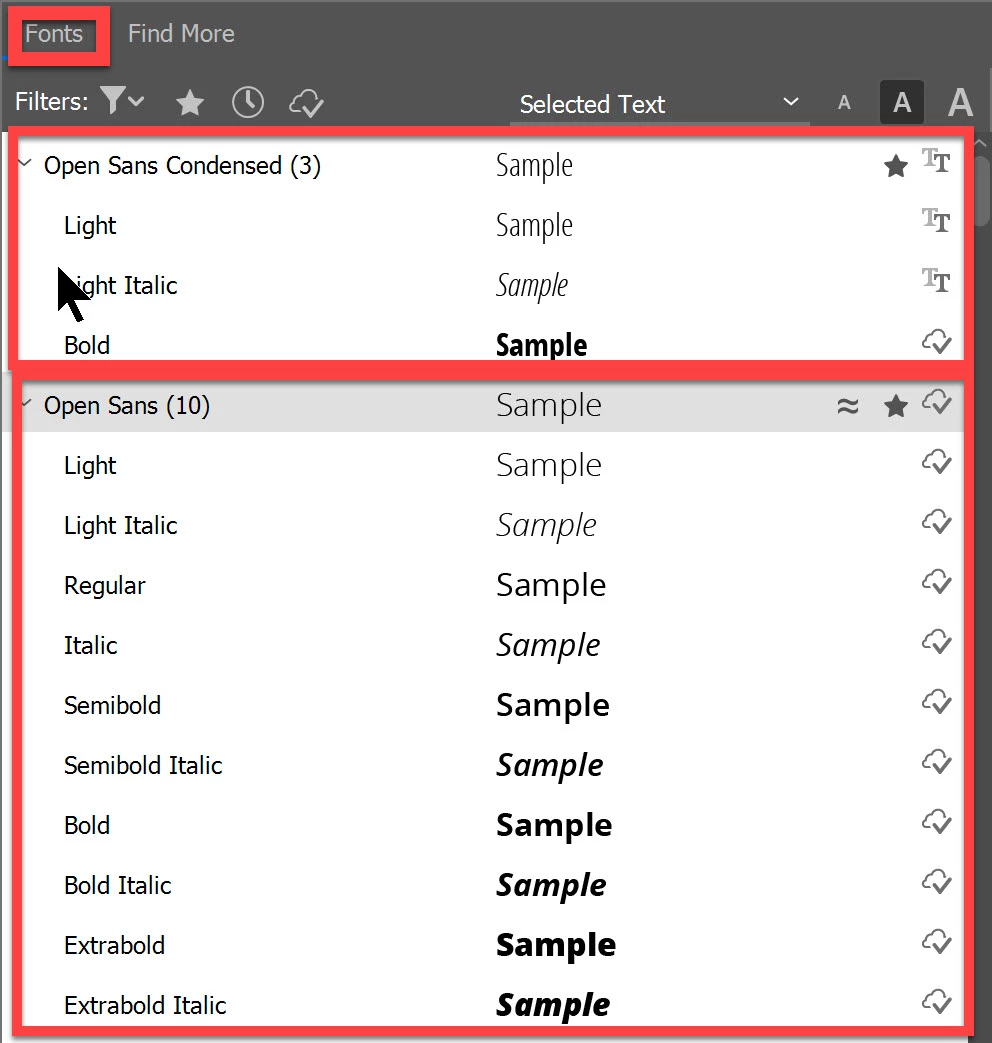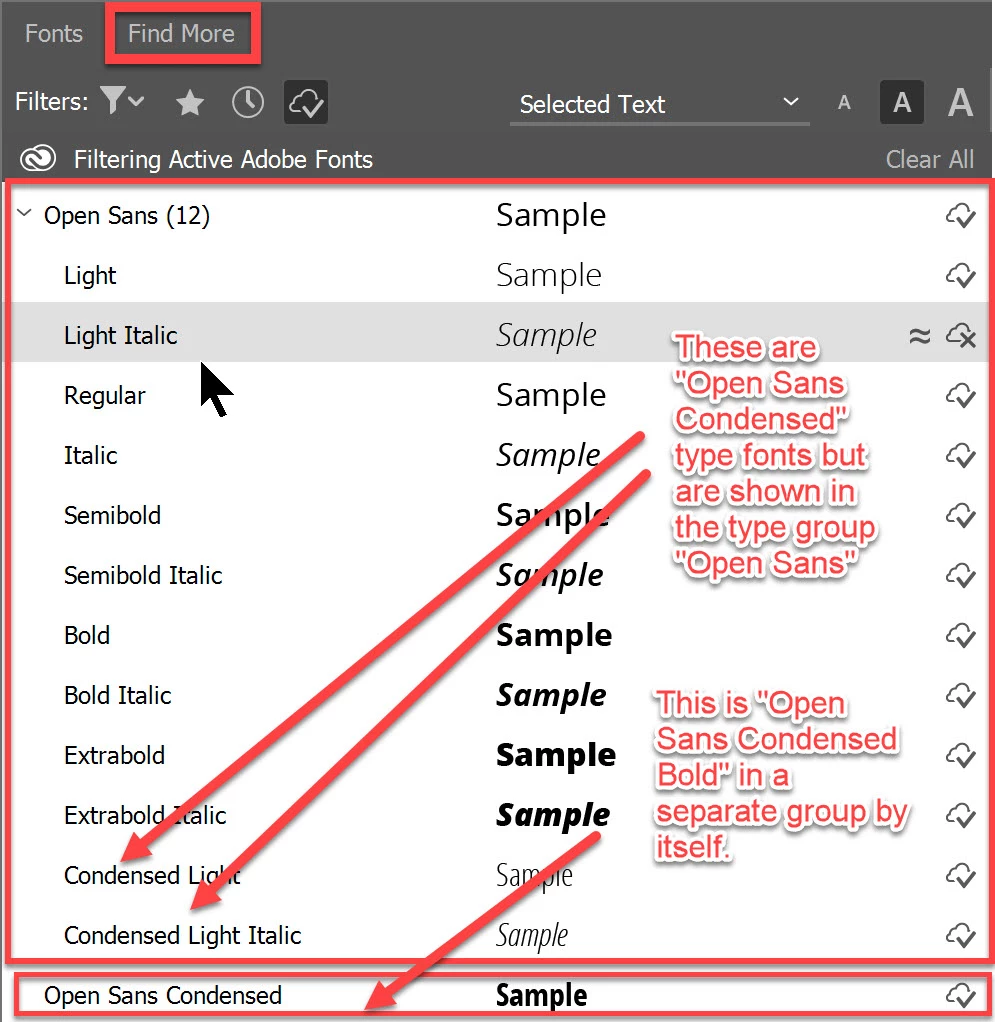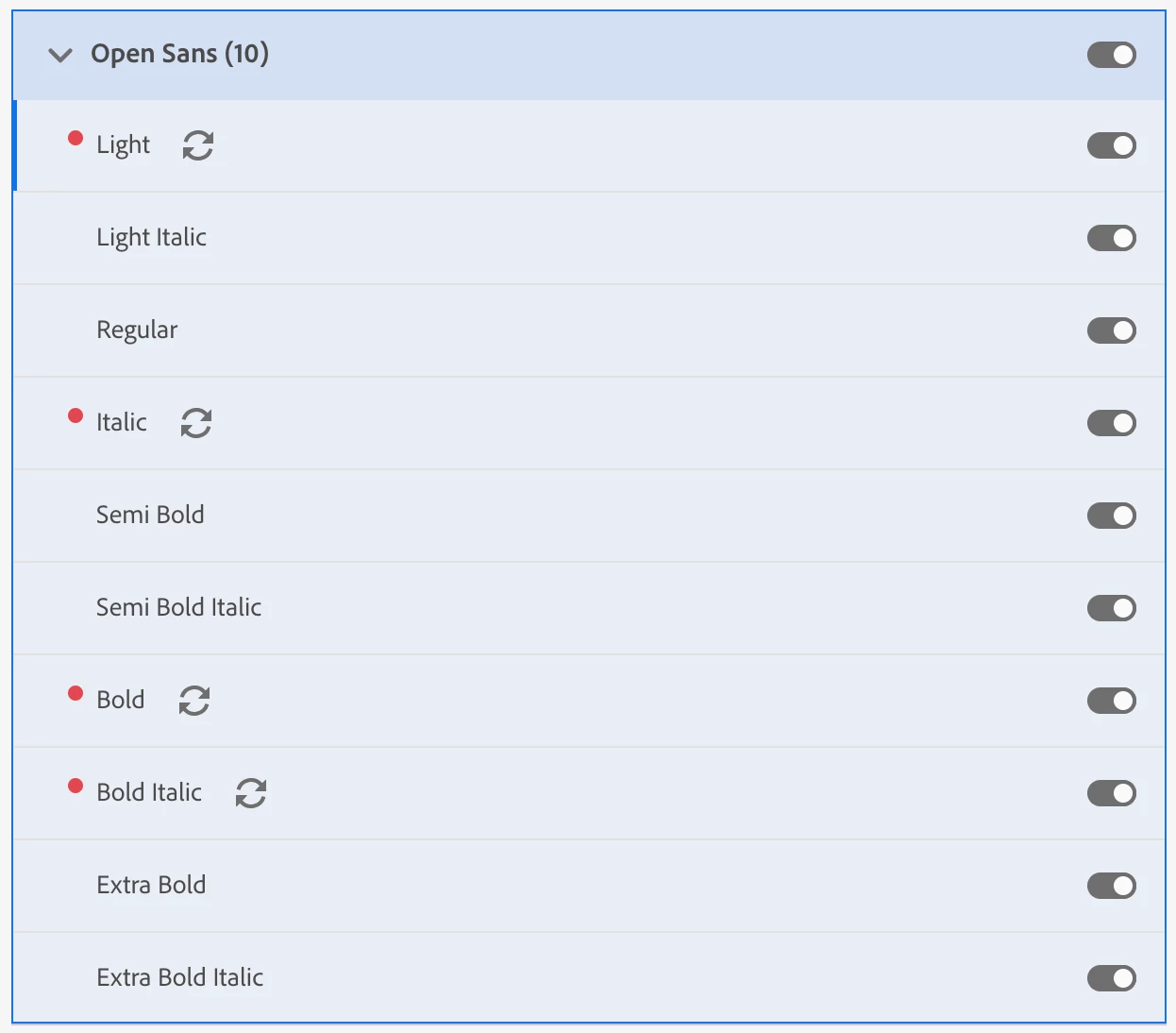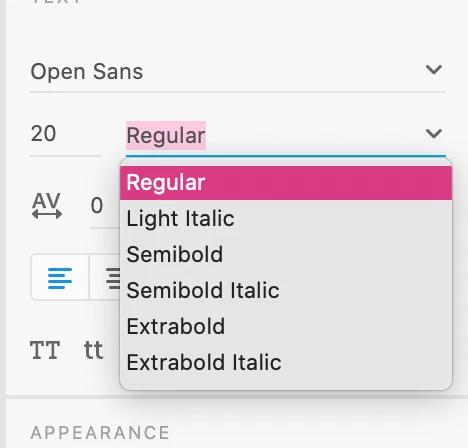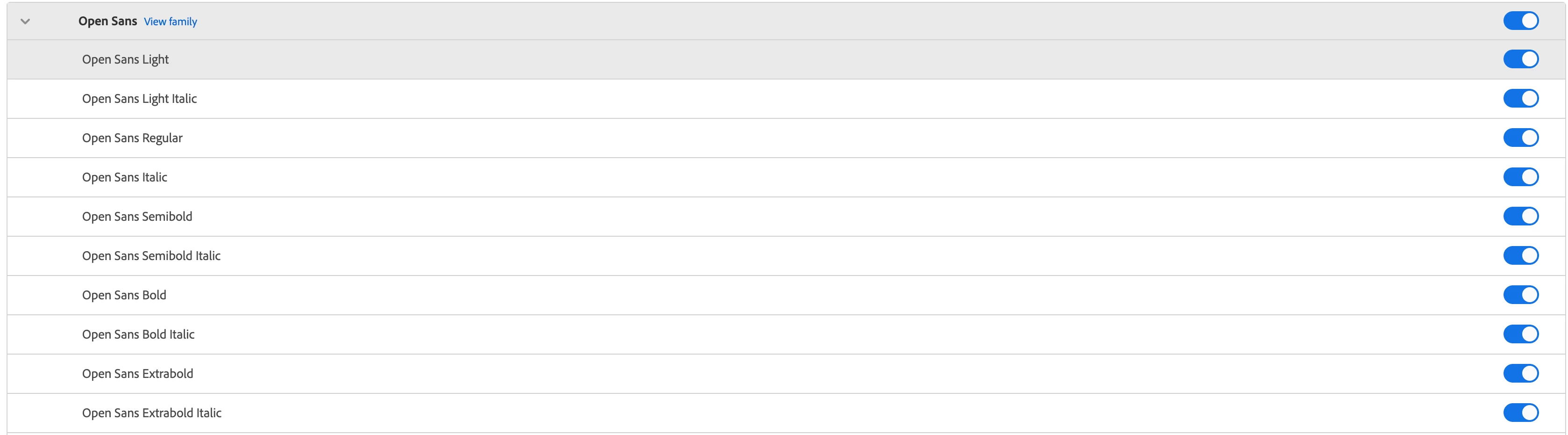
Like applications, fonts are continuously updated and have version numbers. Different versions of the same font may typeset text differently.
Font files – much like applications – are continually revised and updated by typeface designers. That means there may be multiple versions of the same typeface in existence. Applications like InDesign are extremely sensitive to this, and that’s why you may occasionally open a file to a dialogue box claiming that some of your document’s fonts are missing.
How does one version of a font differ from another? Sometimes, letterforms are adjusted. Type designers also may add characters to an existing design to add support for more languages.
Updated spacing is typically the most common reason for releasing a new version, because type designers are constantly adjusting how different characters fit together. Changes in spacing also changes how text typesets in a document. That means ten lines of text may now only take up nine lines, which is a significant change to any layout. That’s why InDesign is so particular about font versioning: if you have a complex layout, you wouldn’t want text to reflow without your knowledge.
Another reason for font versioning: new fonts are added to the typeface. Sometimes, that means new weights, widths, or styles. Open Sans is an excellent example: it was originally released with a limited range of weights and italics. Nowadays, the Latin/Greek/Cyrillic version of Open Sans available on Google Fonts’ website has six weights of roman and italic fonts:
The problem with "Open Sans Condensed" is really a complex one.
The "Adobe Fonts" site (and the "Adobe Fonts" tab in the Creative Cloud Application) does distinguish between the "Open Sans" types (There are 10 fonts in this family in total) and "Open Sans Condensed" types (There are 3 fonts in this family in total). They all seem to be grouped correctly and all of them are activated.
In Indesign, the Fonts selection list also lists these fonts in their correct groups. But when I open the "Find More" tab in the Fonts selection list then I see that two of the "Open Sans Condensed" type fonts are being listed in the "Open Sans" type group.
Whenever Indesign is updated and I go to one of my old manual projects then Indesign loses some or all of the Open Sans Condensed fonts and I have to re-assign them. I've been dealing with this problem for about 7 years now. I switched to Framemaker 2 years ago but sometimes I have to open up one of the old manual files created in Indesign and deal with this issue.
I also have same problem. I've deactivated and reactivated, and I can't get all of the font family.
I recommend going to Google Fonts and downloading it from there. The package you get from them directly comes with both variable and static (use the static ones.. do not load both), and are v3.0 (Adobe is still serving the v1.0 versions).